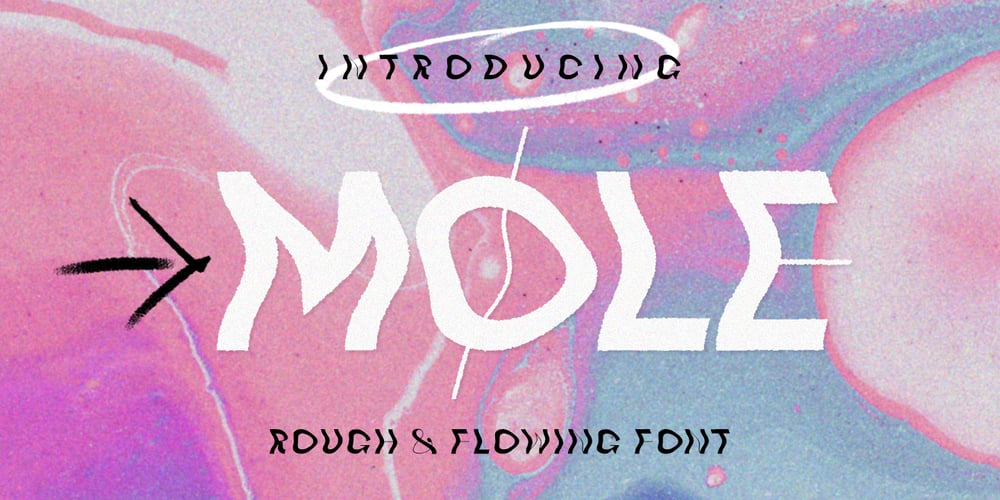
Mole Display Font Family was designed by Sukjana Almunandar and published by Alcode. Mole Display contains 1 styles and family package options. MOLE is a Decorative display font. MOLE come with ROUGH & FLOWING style, it will make this typeface can be used in all design projects and works perfectly for pairing with script typeface or handmade fonts, Headlines, Posters, Packaging, Postcards, Invitation, Wedding Sign, Sign Painting, Signboard, and much more.Try MOLE, and let her fun and elegant excitement make you happy and enhance your creativity! You can use this font very easily.